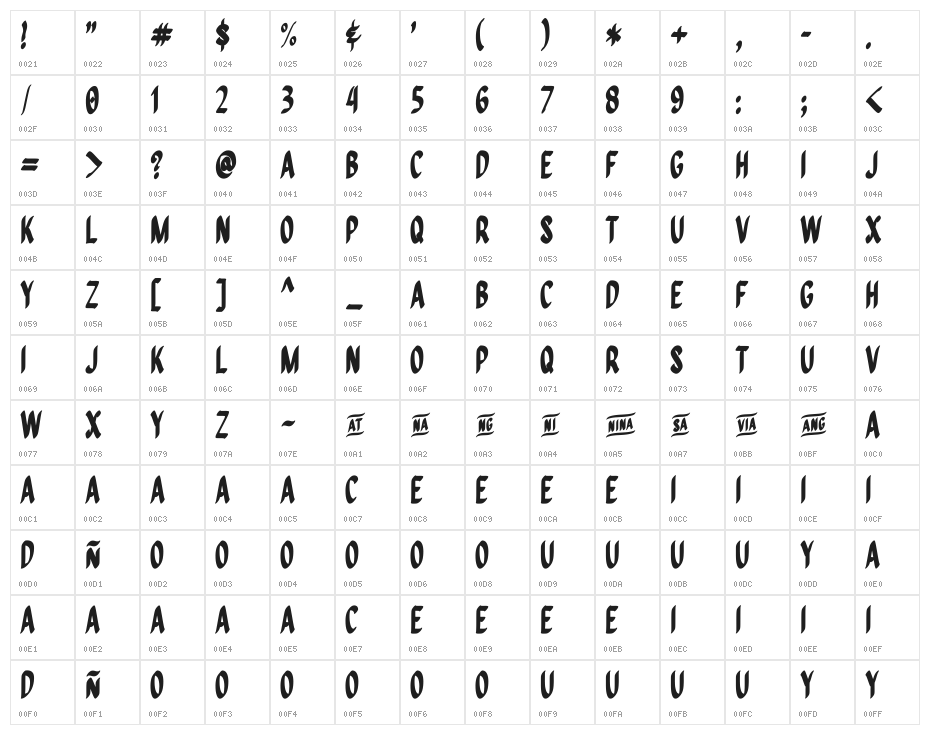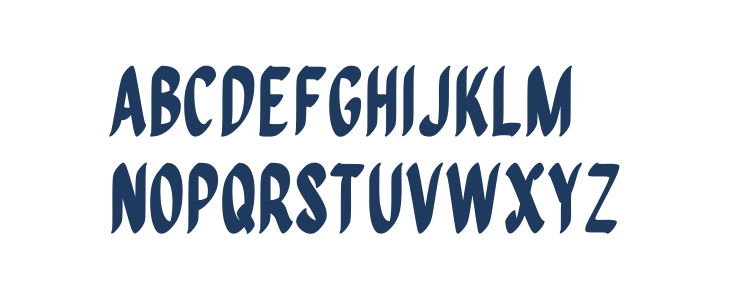
Quiapo Free Font
Quiapo Free Description
This font features a bold and dynamic style with a playful and energetic vibe. The characters are slightly slanted, giving a sense of movement and fluidity. The strokes are thick and consistent, providing a strong visual impact. The uppercase and lowercase letters maintain a cohesive design, with rounded edges and a slight tilt that adds to the overall lively appearance. The numbers and special characters follow the same design principles, ensuring uniformity across all glyphs. This font is ideal for projects that require a bold and eye-catching typeface.
| Proposed Projects | Ideal for posters, headlines, branding, and any design needing a bold, lively typeface. |